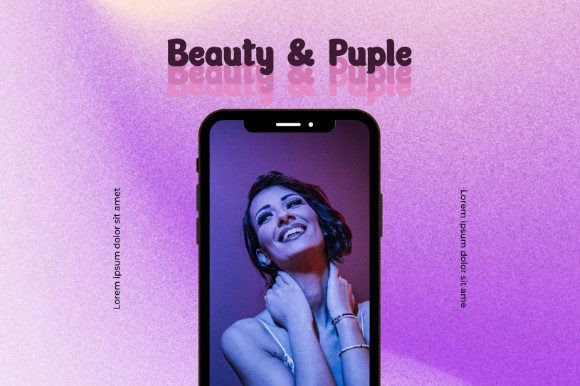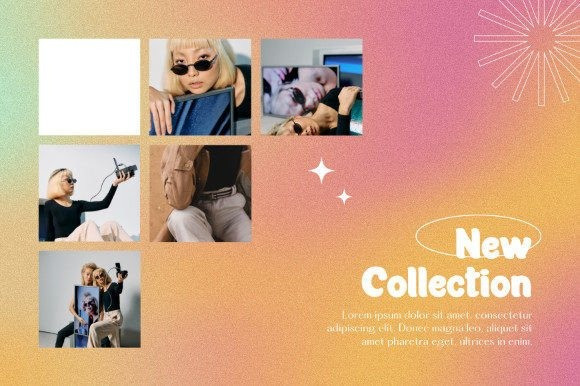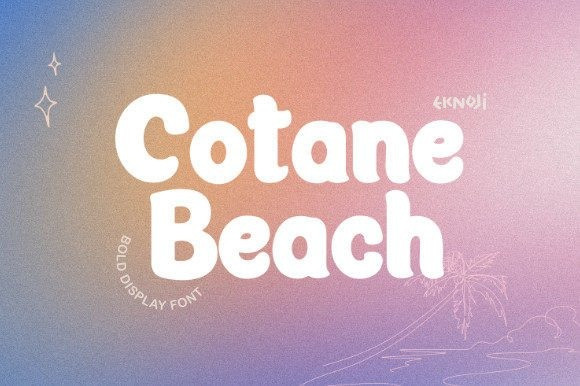
Cotane Beach Font
Cotane Beach Font is a fun and friendly display font. Whatever the topic, this font will be a wonderful asset to your font library, as it has the potential to enhance any creation.